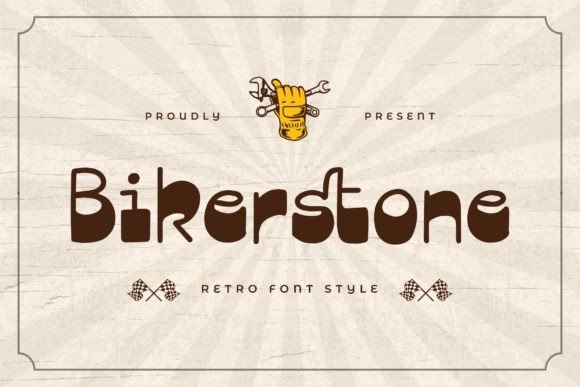
The Retro Revival: Unleashing the Power of Bikerstone Font
I’ll never forget the design project that led me to discover Bikerstone Font. I was working on a vintage-themed poster for a client who wanted to evoke the spirit of the 80s. As I scoured the internet for the perfect font, I stumbled upon Bikerstone – a retro decorative font that instantly transported me back to the era of big hair, neon lights, and radical graphics.
The moment I laid eyes on Bikerstone, I knew I had found the one. Its playfully nostalgic vibe and incredible vintage aesthetic made it the perfect fit for my project. But what really caught my attention was its PUA encoding, which made it easy to access all the amazing glyphs and ligatures. In this article, I’ll share my experience with Bikerstone, its features, and how to make the most of it in your designs.
An Honest Review of Bikerstone Font
• ✨ Retro aesthetic: Bikerstone’s vintage charm is undeniable, making it perfect for designs that require a nostalgic feel.
• ✅ PUA encoded: Easy access to glyphs and ligatures, making it a breeze to use.
• 🎉 Playful and fun: Bikerstone’s personality shines through in its unique character set.
• 💻 Highly versatile: Suitable for a wide range of design projects, from posters to social media graphics.
While Bikerstone is an amazing font, there are a few things to keep in mind:
• ⚠️ Limited use in formal designs: Bikerstone’s playful nature makes it less suitable for formal or professional designs.
• 🤔 May not work well in small sizes: Due to its decorative nature, Bikerstone may not be legible in small font sizes.
The Backstory Behind Bikerstone Font
The story behind Bikerstone’s creation is shrouded in mystery, but it’s said that the font was inspired by the iconic typography of 80s motorcycle culture. The designer, a self-proclaimed font enthusiast, wanted to capture the essence of that era’s rebellious spirit and carefree attitude. The result is a font that’s equal parts nostalgic and playful.
Font Name Bikerstone Font
Author TypeFactory
Q: What is PUA encoding, and how does it benefit Bikerstone Font?
A: PUA (Private Use Area) encoding allows font creators to include additional characters, glyphs, and ligatures that aren’t part of the standard Unicode character set. In the case of Bikerstone, PUA encoding makes it easy to access its unique character set.
Q: Is Bikerstone Font suitable for body text?
A: Due to its decorative nature, Bikerstone Font is best suited for headlines, titles, and short text passages. It may not be legible or readable for body text.